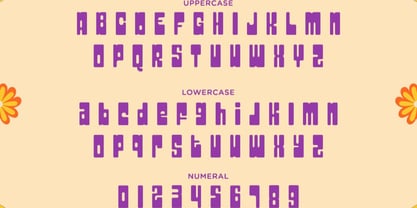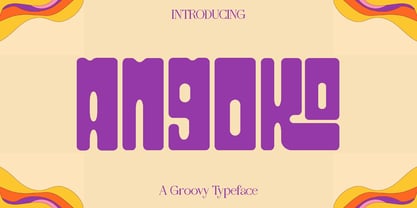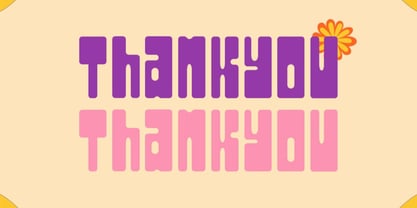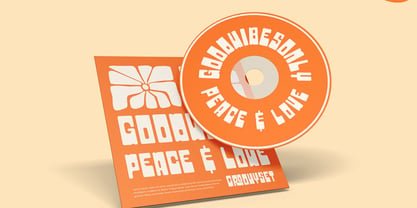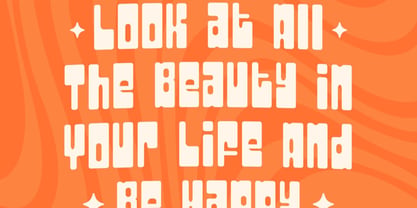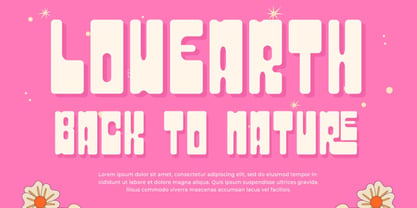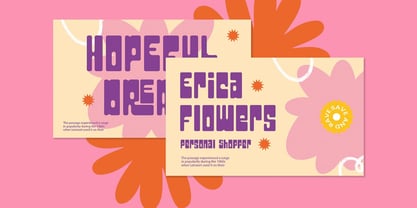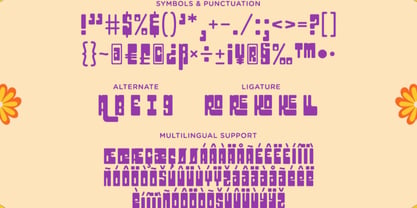
Angoko
by Only Fonts
The Angoko Font Family was designed by Olivia Love and published by Only Fonts. Angoko contains 1 styles. More about this family
Angoko – Groovy Retro Display Font Angoko is a vibrant groovy retro display font that embodies the playful spirit and energetic vibe of the 70s. Designed to reflect the rhythm of vintage pop culture, Angoko showcases bold curves and expressive shapes, infusing your typography with a lively personality that evokes fun and nostalgia. Each character is meticulously crafted to feel dynamic and musical, ensuring your designs radiate energy and vitality. This font excels in projects that embrace creativity and retro aesthetics. Angoko is ideal for vintage branding, funky logos, disco-themed posters, album artwork, event invitations, merchandise, and eye-catching social media visuals. Its unique letterforms create compositions that are joyful, expressive, and memorable across both print and digital platforms. With a playful, warm, and character-filled essence, Angoko is perfect for designers aiming to evoke nostalgia while making a bold visual impact. Whether you're developing a retro-inspired identity or adding flair to a modern layout, Angoko delivers a distinctive groove that ensures your work stands out with charm and creativity. Angoko Groovy Retro Font Features: • Uppercase and lowercase characters • Symbols, punctuation, and numerals • Ligatures and alternate characters • Multilingual support Dive into a colorful world of retro expression with Angoko and let your designs flow with style, rhythm, and personality.
Designers: Olivia Love
Foundry: Only Fonts